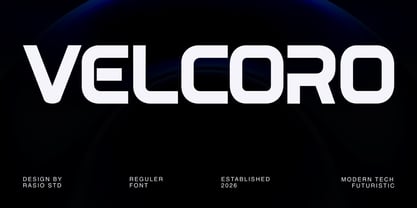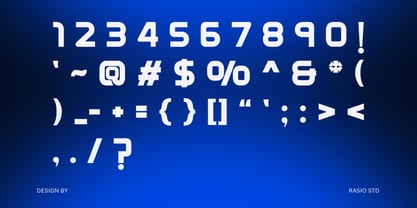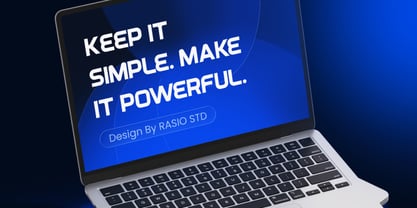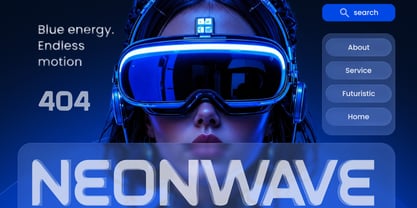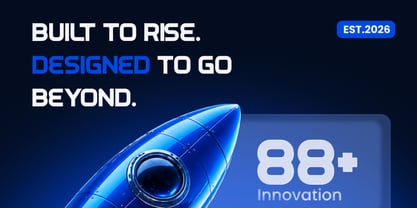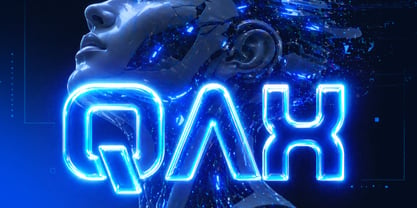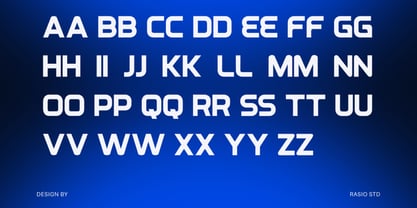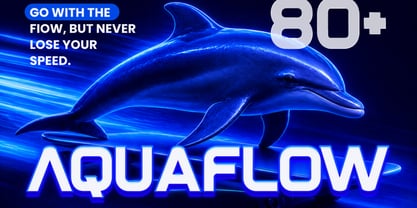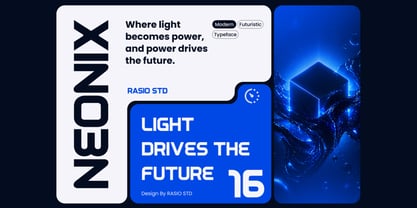
Velcoro
Die Schriftfamilie Velcoro wurde von Fajar Indra entworfen und von Rasio Studio veröffentlicht. Velcoro enthält 1 Stile. Mehr über diese Familie
Velcoro Tech Futuristic Font features a modern geometric sans serif style with rounded corners, bold proportions, and sleek futuristic construction. The font includes uppercase, lowercase, numerals, and punctuation with clean techno-inspired letterforms suitable for high-impact visual projects. Designed with a minimal sci-fi aesthetic, this typeface works perfectly for branding, digital interfaces, gaming visuals, technology promotions, and modern editorial layouts.
Relevance and Use Cases is perfect for futuristic and technology-focused visual projects that require a sleek, bold, and modern appearance. This font works effectively for gaming graphics, esports branding, sci-fi movie titles, startup identities, digital product presentations, UI/UX interfaces, social media campaigns, automotive visuals, technology advertising, and modern poster layouts that demand a strong futuristic atmosphere.